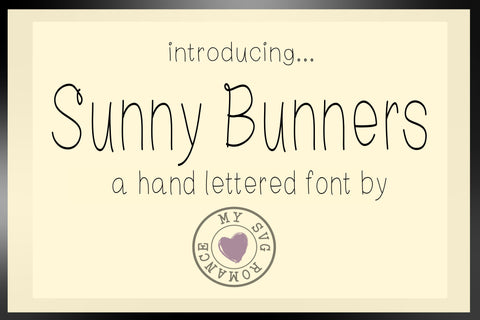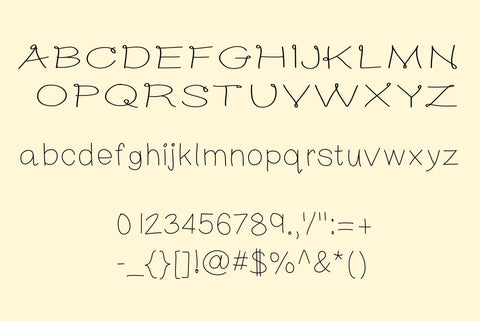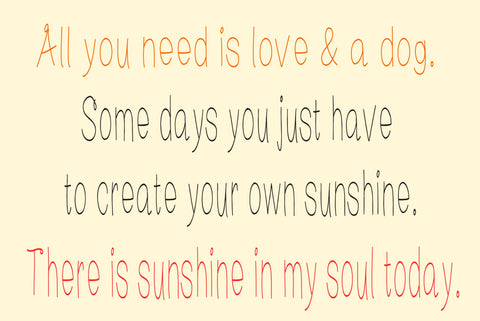
Sunny Bunners - A Hand Lettered Font
Sunny Bunners is a hand-lettered font made up of capital letters A-Z, lowercase letters a-z, numbers 0-9, some accented characters, and punctuation.